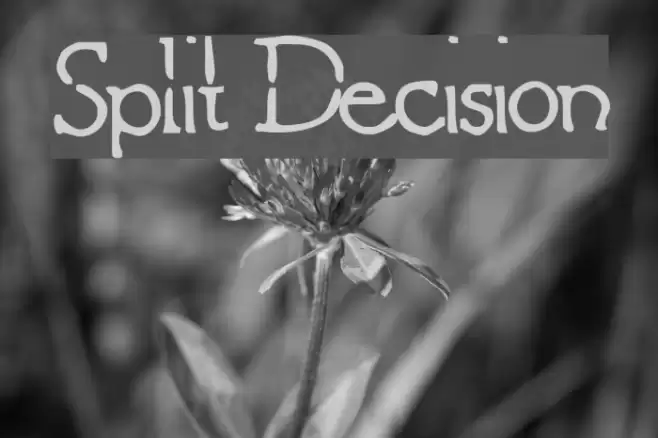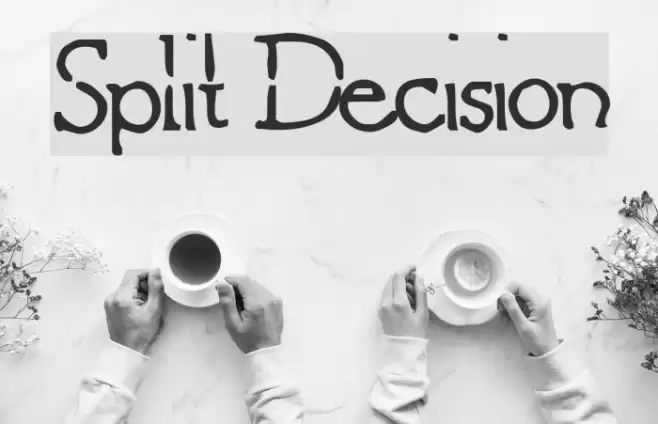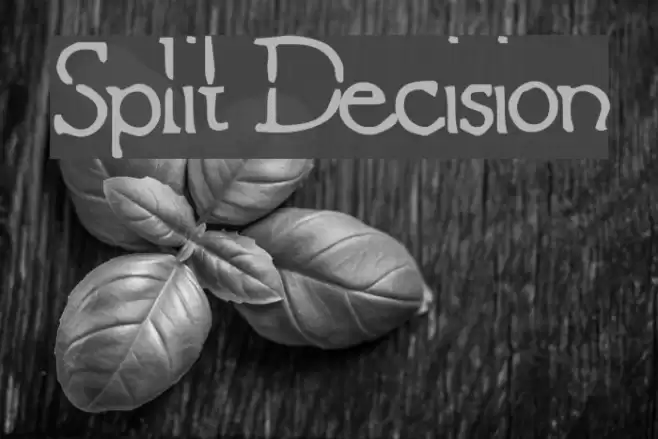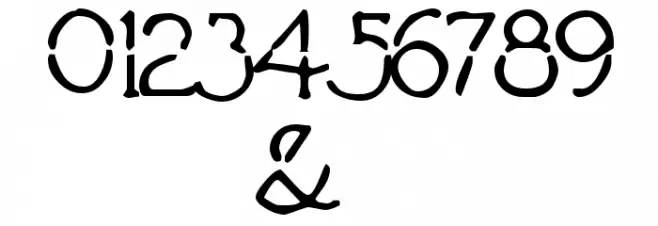
Split Decision Font
Split Decision Description
This font features a unique and artistic design, characterized by its split and fragmented appearance. The letters are bold and have a hand-drawn quality, with irregular strokes and varying thicknesses that give it a dynamic and edgy feel. The uppercase and lowercase letters maintain a consistent style, with sharp angles and a slightly distorted look that adds to its distinctive personality. The numerals and special characters follow the same design principles, ensuring a cohesive overall appearance. This font stands out with its creative and unconventional style, making it suitable for projects that require a bold and artistic touch.
An artistic, fragmented font with bold, hand-drawn strokes and a unique, edgy style from Uncategorized fonts.
- Overall Style: Artistic, Edgy, Creative